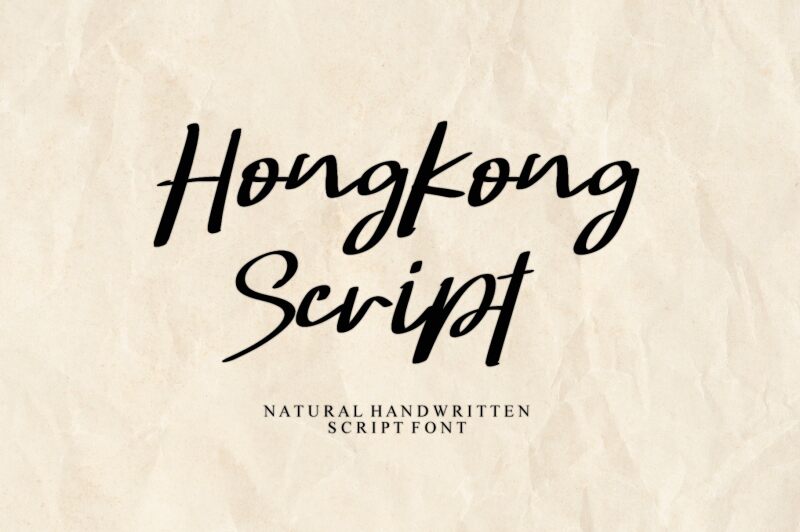
Hongkong Script Italic - Person Italic
Hongkong Script Italic font is a handwritten font designed by Letterafa Studio. The letters have elegant shapes, modern strokes, and smooth flowing lines creating expressive and artistic flair within every word. This is all supported by the contemporary appeal of each character allowing it to make a statement when integrated into your design work.
Use cases for this typeface are branding projects, label designs, product packaging, invitation cards, greeting cards, wedding posters, magazines covers or titles and other print media designs. Each result will be eye-catchy at first glance without being too busy!